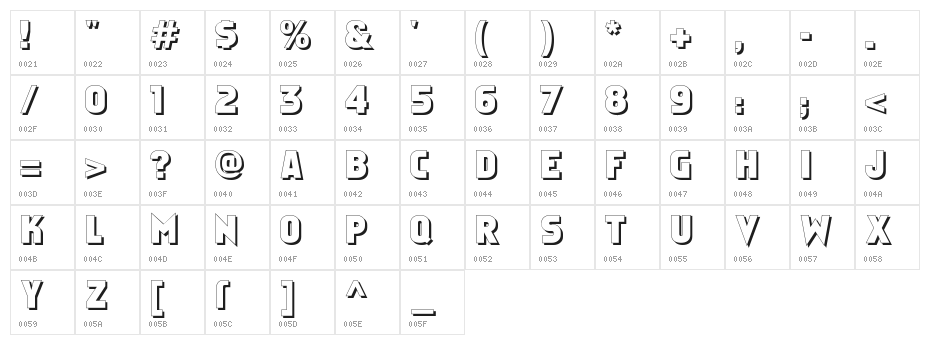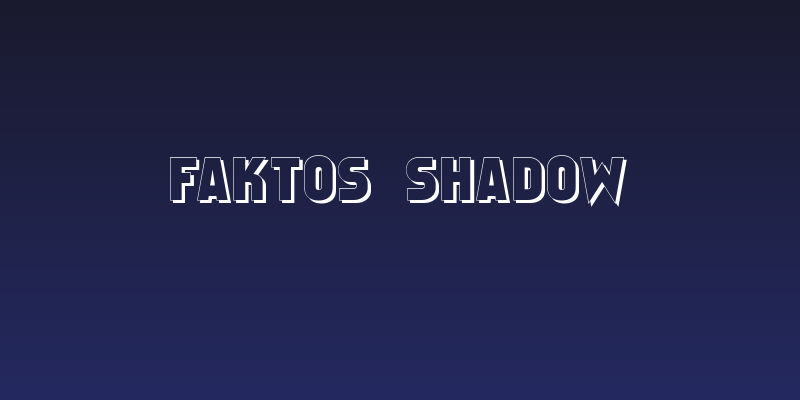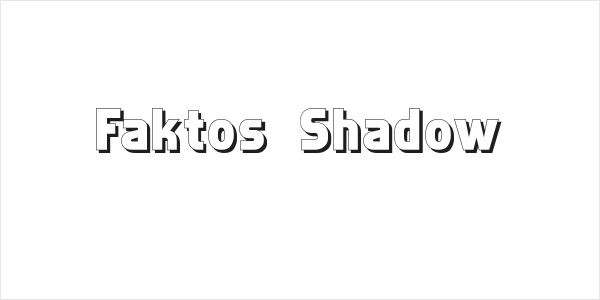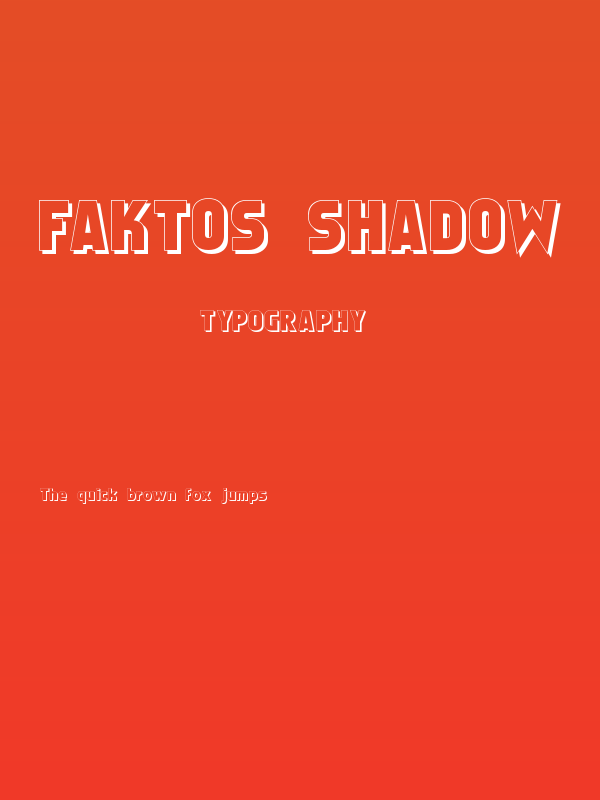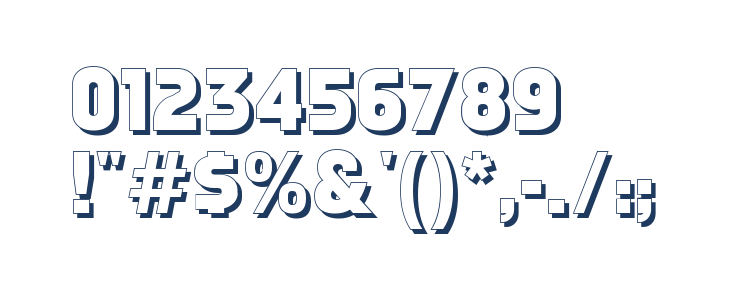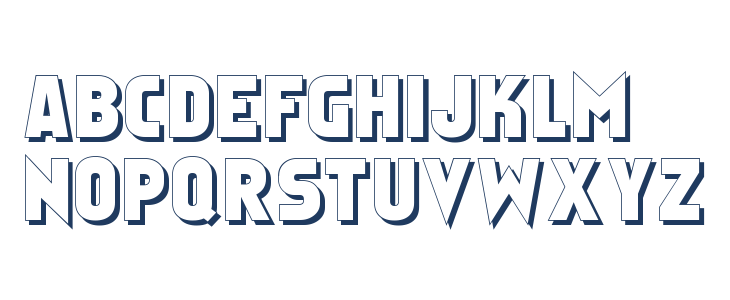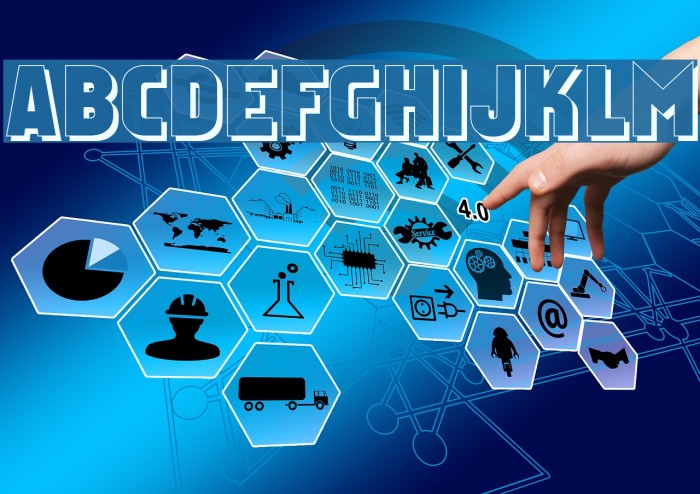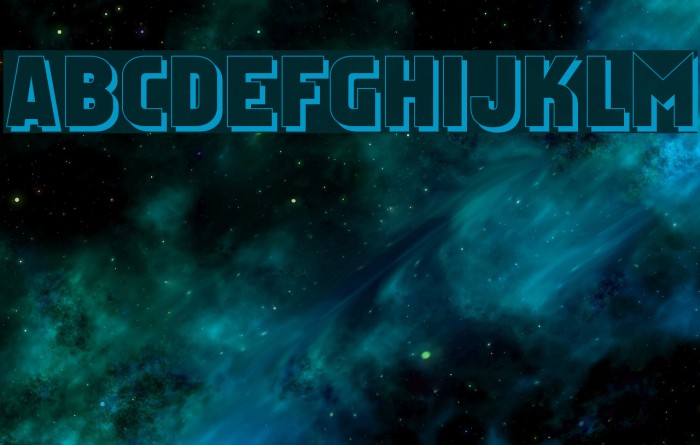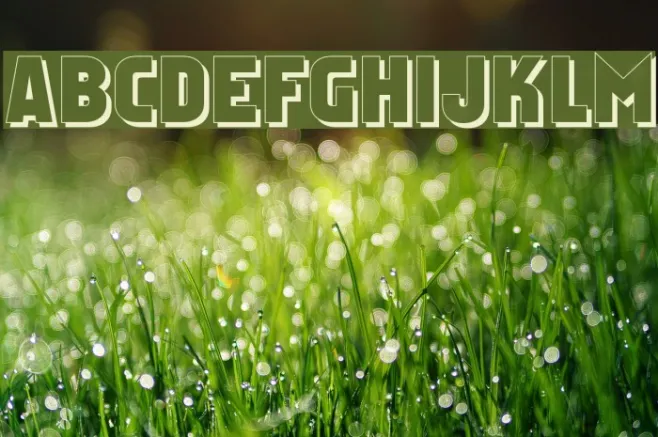
Faktos Shadow Font
Faktos Shadow Description
This font features a bold, three-dimensional shadow effect that gives it a striking and impactful appearance. The characters are uppercase and lowercase letters, numerals, and a variety of special characters. Each letter is designed with a strong geometric form, creating a sense of depth and dimension. The shadow effect is consistent across all characters, enhancing the boldness and making it ideal for attention-grabbing designs. The font's clean lines and sharp angles contribute to a modern and dynamic aesthetic, making it suitable for a wide range of creative projects.